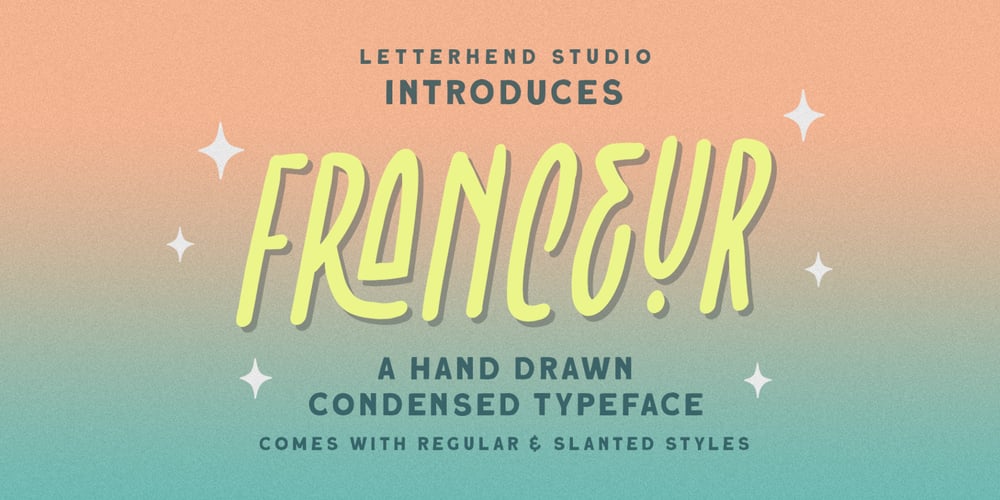
Franceur
Franceur font
Franceur Font Family was designed by Hendry Juanda and published by Letterhend. Franceur contains 4 styles and family package options. Introducing, Franceur. A condensed display typeface with natural hand writing feel. This font is perfectly made to be applied especially for invitations, labels, magazines, books, greeting / wedding cards, packaging, fashion, make up, stationery, novels, labels or any type of advertising purpose.Features : Uppercase and Lowercase Numbers and Punctuation Ligatures and Alternates Multilingual Support PUA encoded We highly recommend using a program that supports OpenType features and Glyphs panels like many of Adobe apps and Corel Draw, so you can see and access all Glyph variations.Email us to letterhend@gmail.com if you need something! Happy Designing!